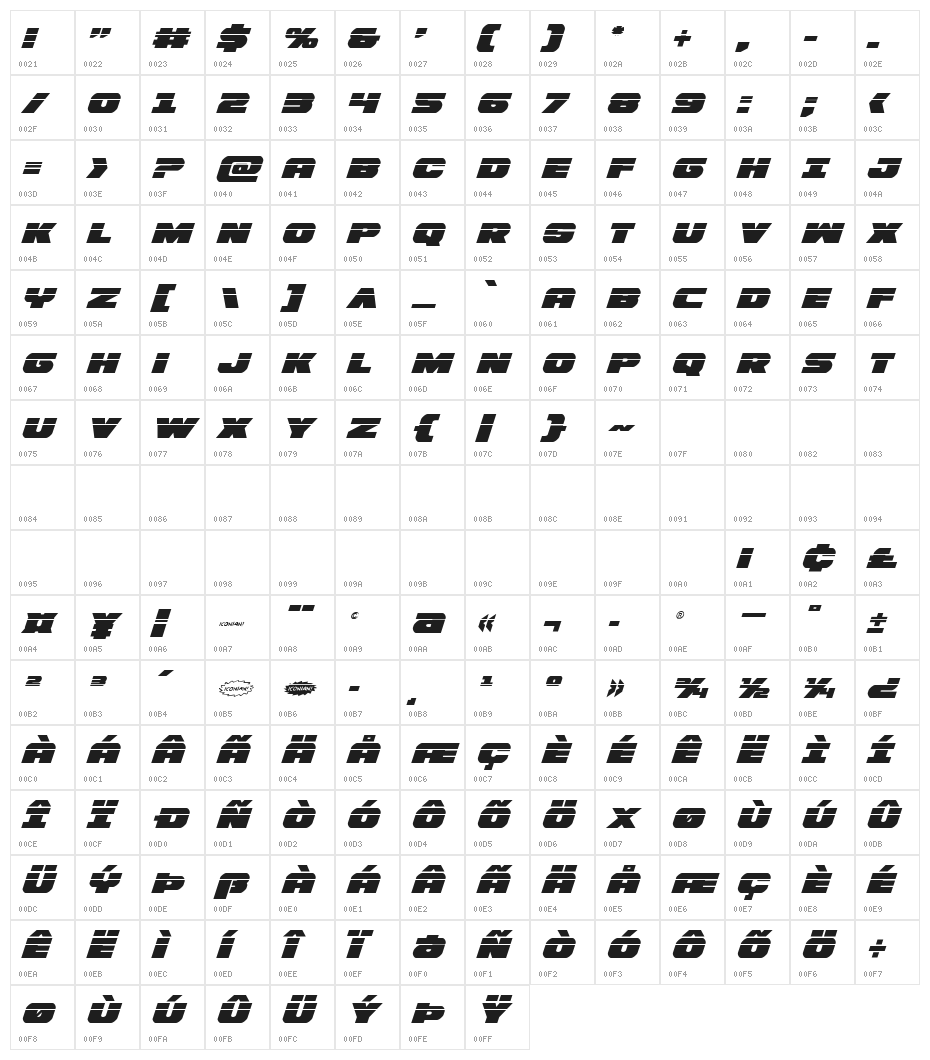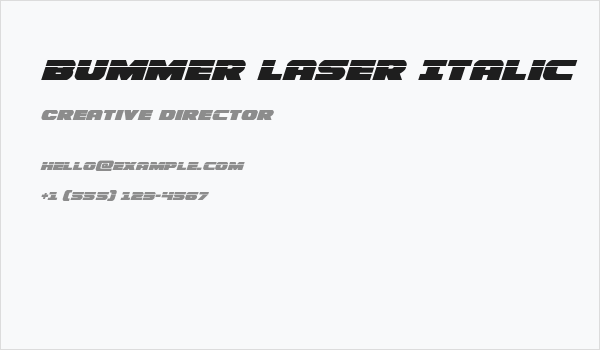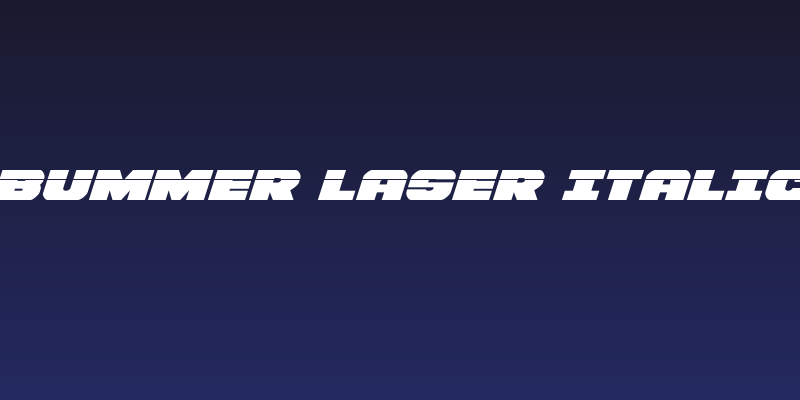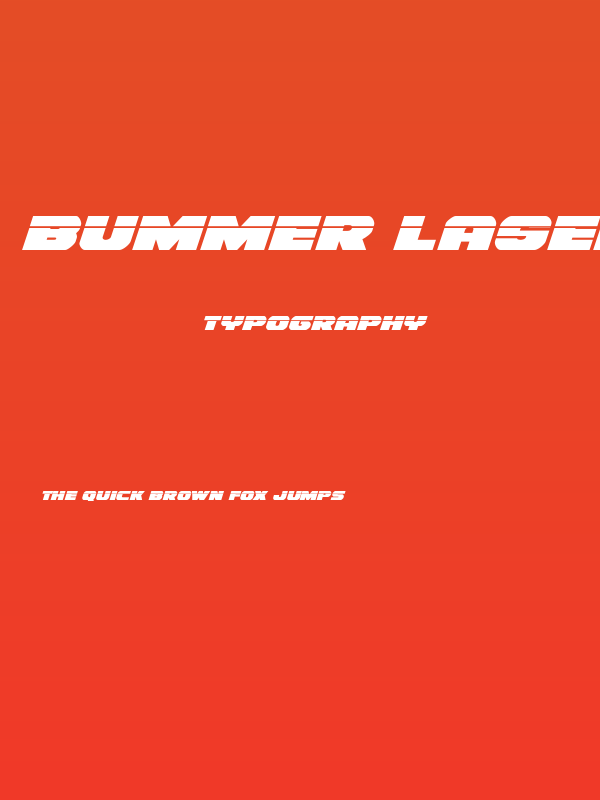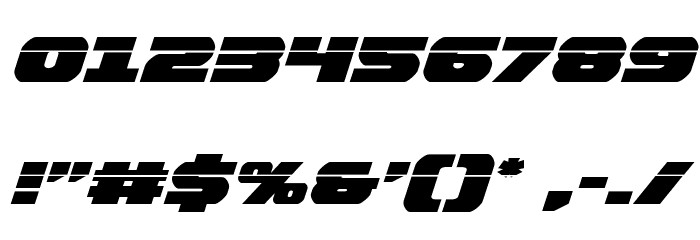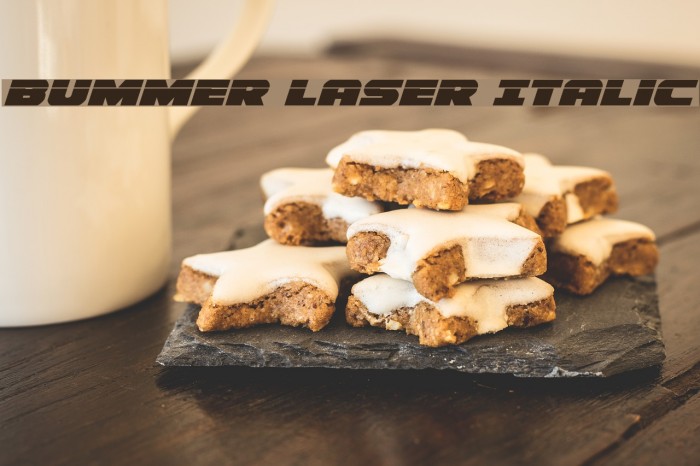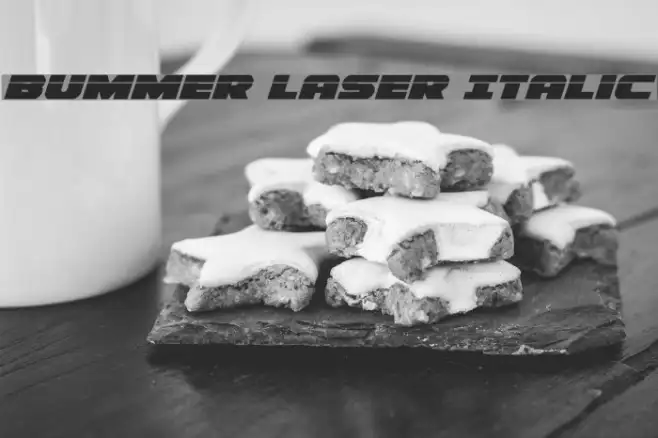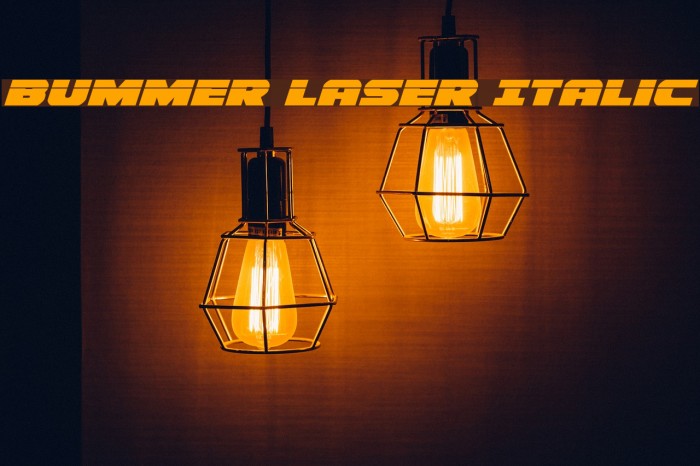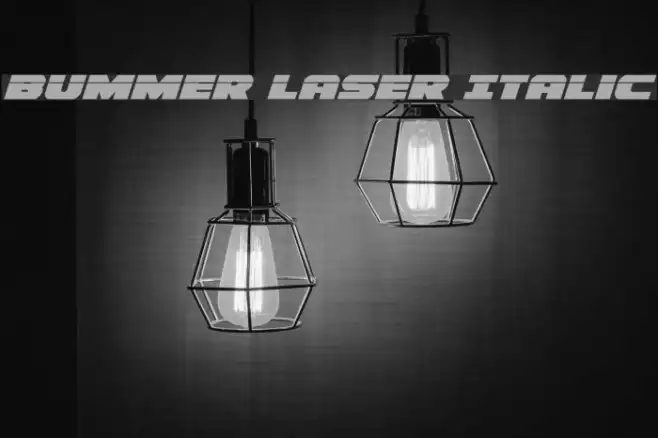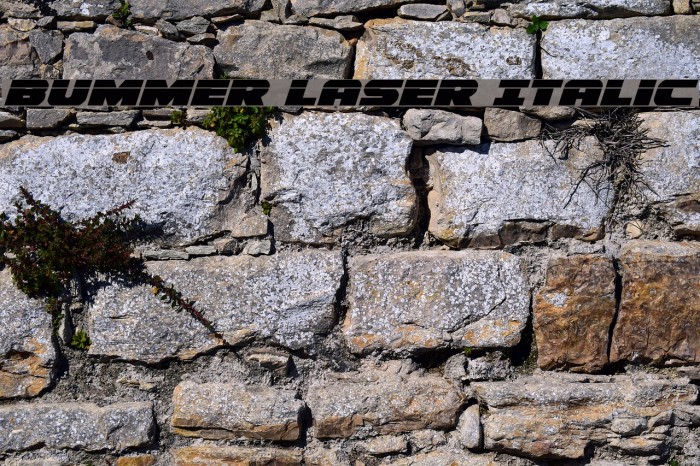
Bummer Laser Italic Font
Bummer Laser Italic Description
This font features a bold and dynamic style with a distinct italic slant, giving it a sense of motion and energy. The characters are wide and have a strong presence, making them ideal for attention-grabbing designs. The geometric shapes and sharp angles contribute to a futuristic and industrial feel. The uppercase and lowercase letters maintain a consistent weight, while the numerals and special characters are designed to match the overall aesthetic. The font's boldness and unique style make it suitable for projects that require a modern and impactful look.
| Proposed Projects | Ideal for branding, posters, sports team logos, and any design requiring a strong, modern impact. |